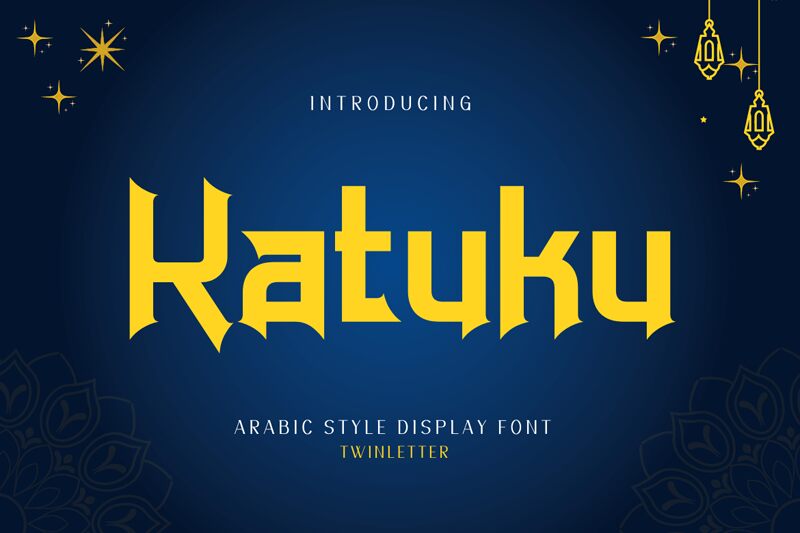
Katuku, designed by twinletter, is an exquisite Arabic font that effortlessly blends tradition with modernity. With its semi-light weight, Katuku emanates an air of elegance and sophistication, making it ideal for projects that require a touch of refinement.
This versatile font is perfect for branding luxurious products, designing high-end invitations and stationery, or creating visually stunning editorial pieces. Its graceful curves and intricate details bring a timeless charm to any creative endeavor.
Allow Katuku to elevate your designs and captivate audiences with its captivating beauty.